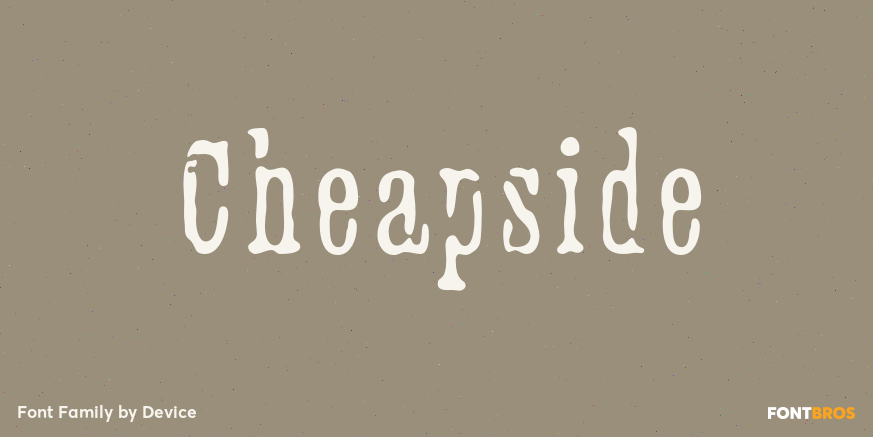
HomeFont BrosDistressedCheapside DistressedSpecial EffectSerif Cheapside FacebookXPinterestWhatsApp 1 of 1 About Cheapside A condensed serif that\’s been through the ravages of reproduction but has now been digitized for modern use.  DOWNLOAD NOW People also explored Cantana Script Font Rey Simpson Font Amelina Duo Font Pretty Girls Font Shelline Font Moraton Font Pullman Penelope Font Proestin Font Big Dreams Font 241 0 TagsCheapside Font Previous articleSmiling CatNext articleSteamCourt LEAVE A REPLY Cancel reply Comment: Please enter your comment! Name:* Please enter your name here Email:* You have entered an incorrect email address! Please enter your email address here Website: Save my name, email, and website in this browser for the next time I comment. Personal Use Free New Amsterdam Personal Use Free Read more about this font Gupis Personal Use Free Read more about this font Braindly Personal Use Free Read more about this font Predators Personal Use Free Read more about this font BLOG Free vs Paid Fonts: Why Investing in Premium Fonts Is Worth It Free vs Paid Fonts: Why Premium Fonts Are Worth It in 2025 The debate of free vs paid fonts continues in the design world. While... How to Cut Any Font on Cricut: Convert a Font to SVG (Free) Using Fonts in Digital Marketing: Tips to Strengthen Your Brand Identity Free Fonts Risk: Why Free Fonts Can Be Dangerous for Designers